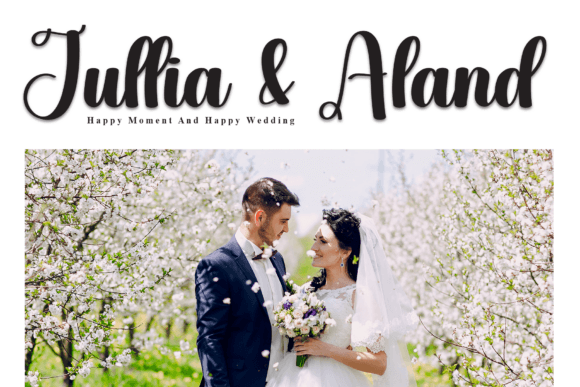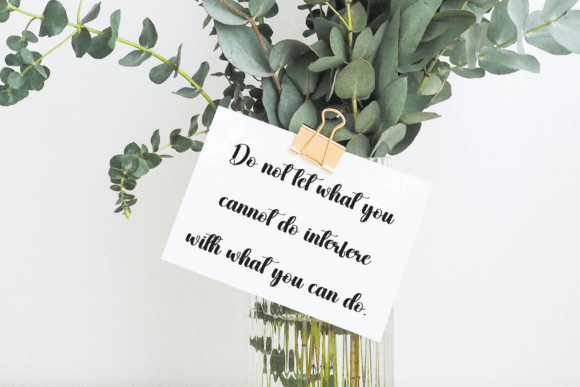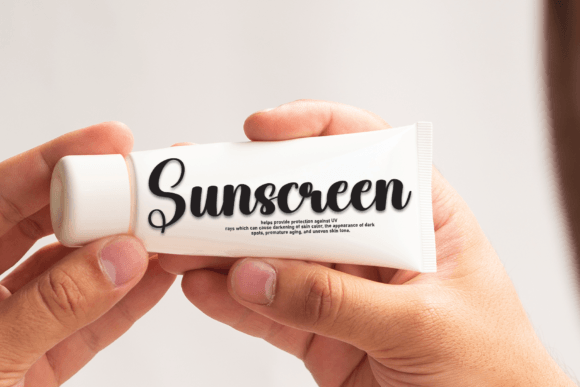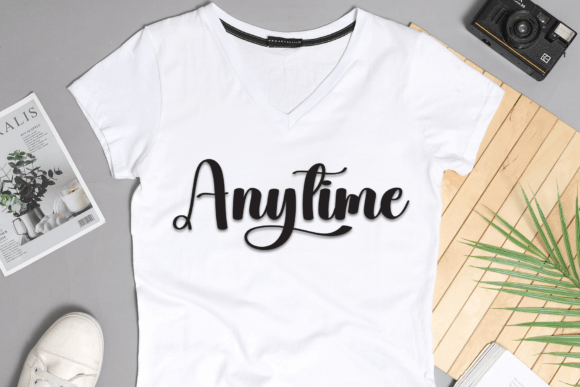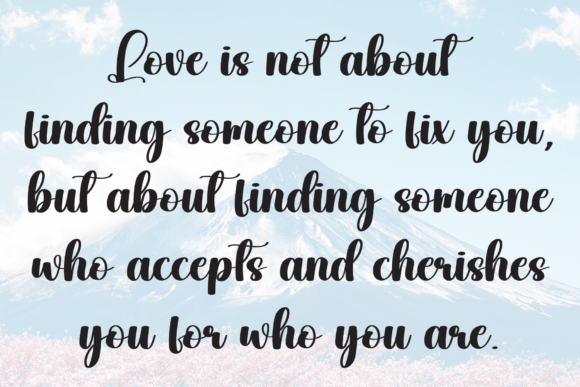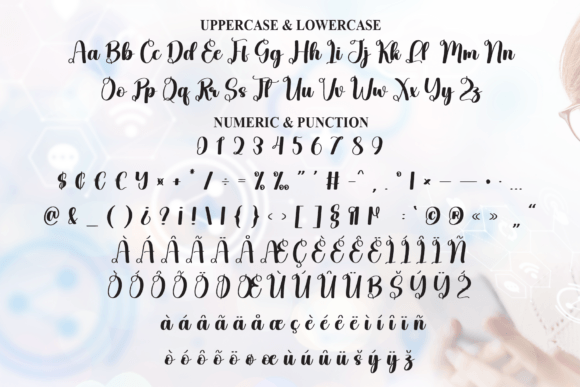
Discover the Delightful Charm of Digital Fonts: Elevate Your Designs with a Sweet and Friendly Aura
Are you a designer or crafter looking for a way to add a touch of personality to your projects? Look no further than digital fonts, specifically a handwritten display font that radiates a sweet and friendly aura. Our cute and whimsical typeface is an artist’s dream for adding a dash of fun to any project, making it perfect for wedding invitations, greeting cards, and more.
The Power of Handwritten Fonts
Handwritten fonts have a way of evoking emotions and adding a personal touch to any design. They can instantly convey a sense of warmth, friendliness, and approachability, making them perfect for projects where you want to connect with your audience on a more personal level. Our digital font is no exception, with its unique and playful characters that are sure to make your designs stand out.
Why Choose a Handwritten Display Font?
So, why choose a handwritten display font over other types of fonts? For starters, handwritten fonts are incredibly versatile and can be used in a variety of contexts, from formal to informal. They’re also highly customizable, allowing you to adjust the size, color, and style to fit your design needs. Additionally, handwritten fonts can add a level of sophistication and elegance to your designs, making them perfect for high-end projects.
The Benefits of Our Cute and Whimsical Typeface
Our digital font is more than just a pretty face – it offers a range of benefits that make it perfect for designers and crafters. Here are just a few of the advantages of using our font:
• Playful touch: Our font adds a playful touch to any design, making it perfect for projects where you want to convey a sense of fun and whimsy.
• Ease of use: Our font is incredibly easy to use, with a simple and intuitive design that makes it easy to get started.
• Customization: Our font is highly customizable, allowing you to adjust the size, color, and style to fit your design needs.
• Versatility: Our font can be used in a variety of contexts, from formal to informal, making it perfect for a range of projects.
Our digital font is perfect for wedding invitations and greeting cards, where you want to convey a sense of warmth and personality. The playful touch of our font adds a level of whimsy and fun to these types of projects, making them truly special and memorable. Whether you’re a designer or crafter, our font is sure to make your projects stand out.
Tips for Using Our Digital Font
Here are a few tips for getting the most out of our digital font:
• Experiment with different sizes: Our font looks great in a variety of sizes, so don’t be afraid to experiment and find the perfect size for your project.
• Play with color: Our font can be used in a range of colors, so try out different options to find the one that works best for your design.
• Mix and match: Our font can be paired with other fonts to create a unique and interesting design.